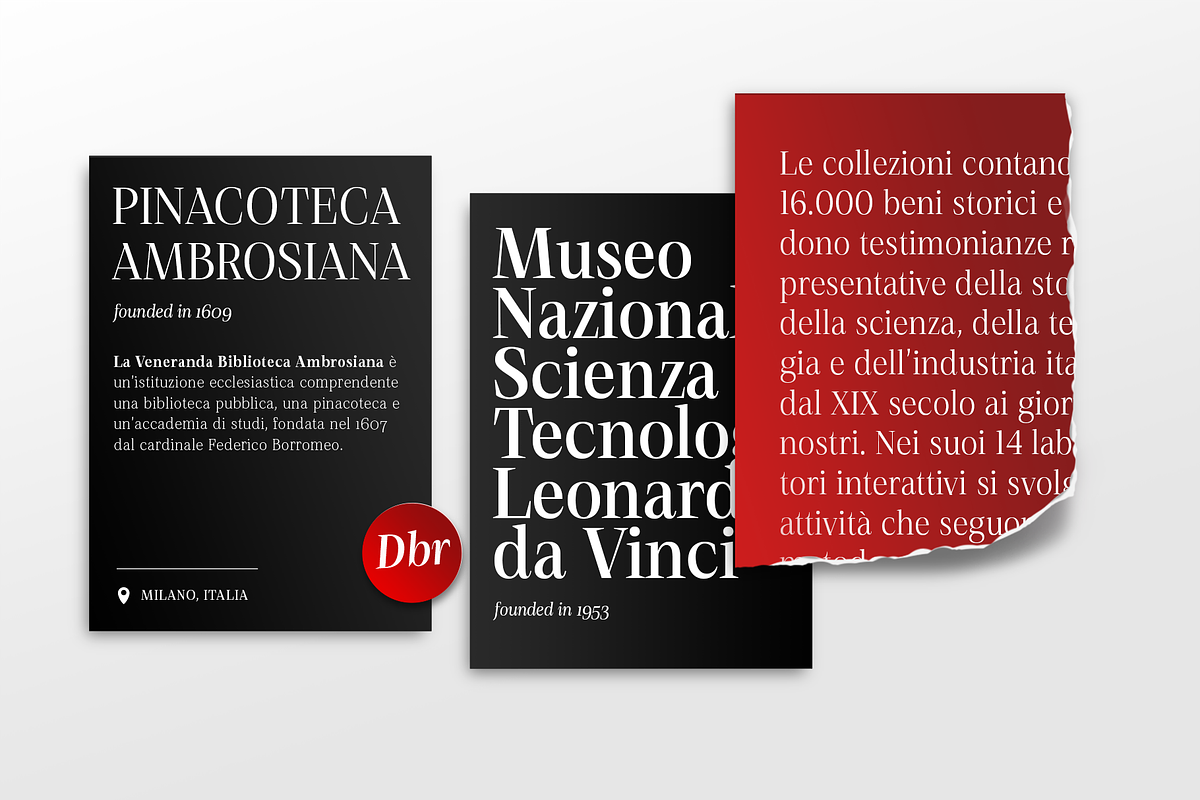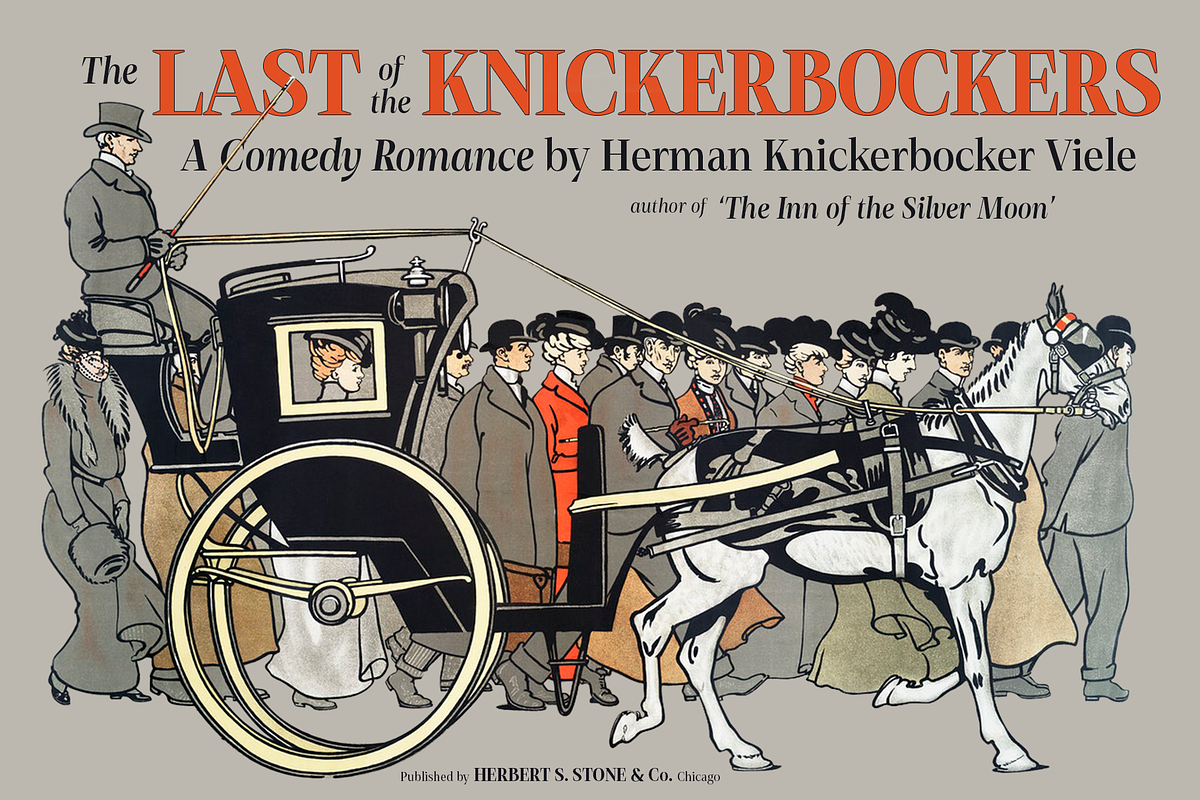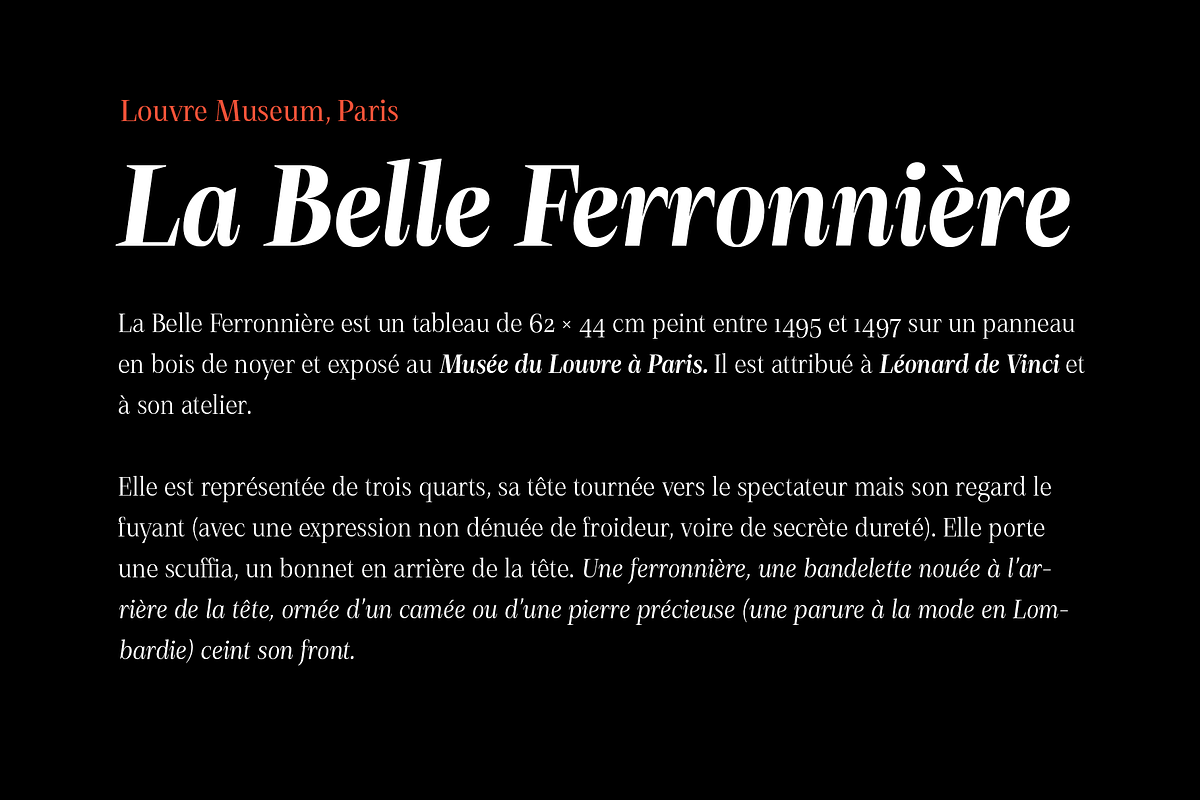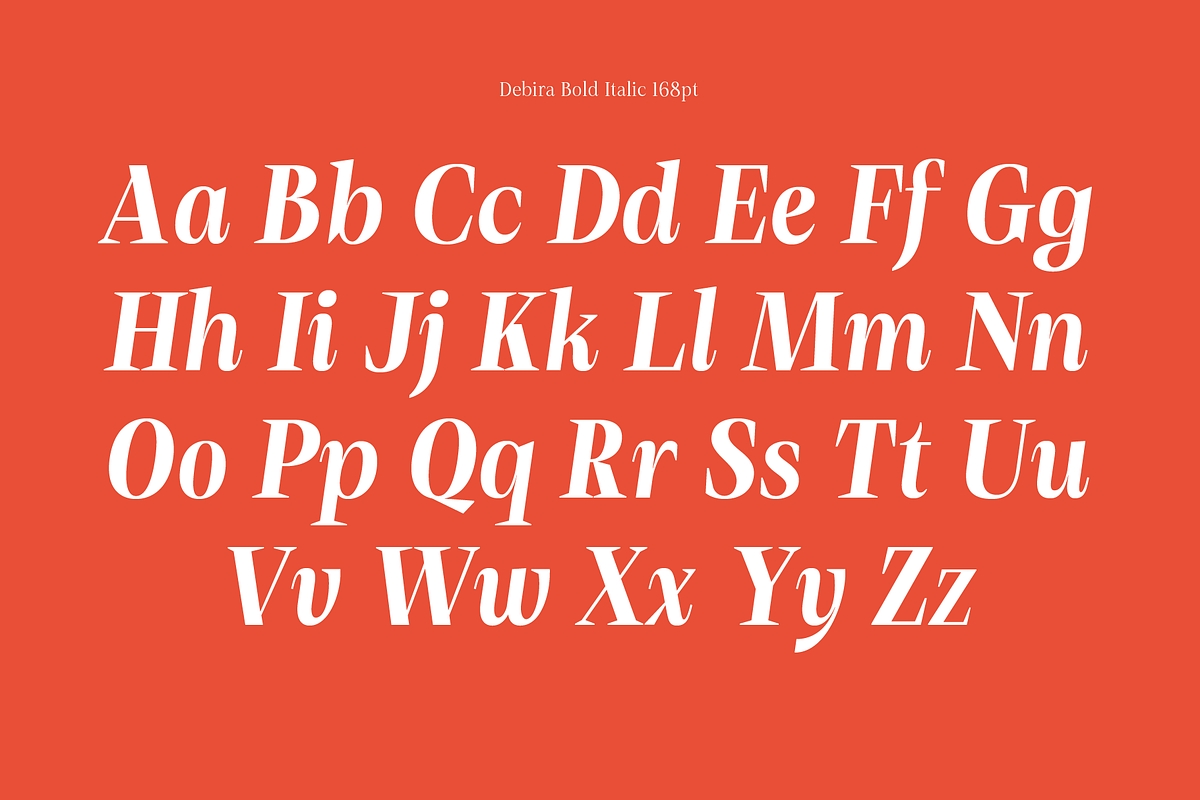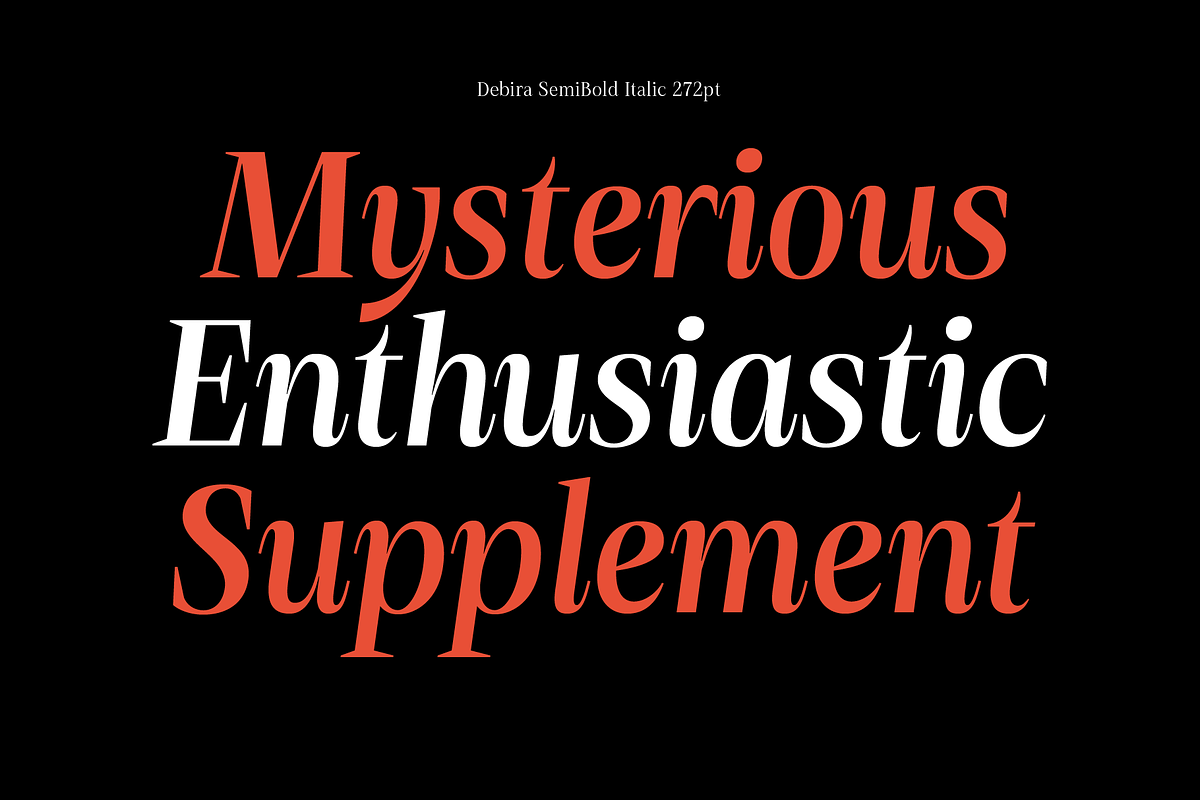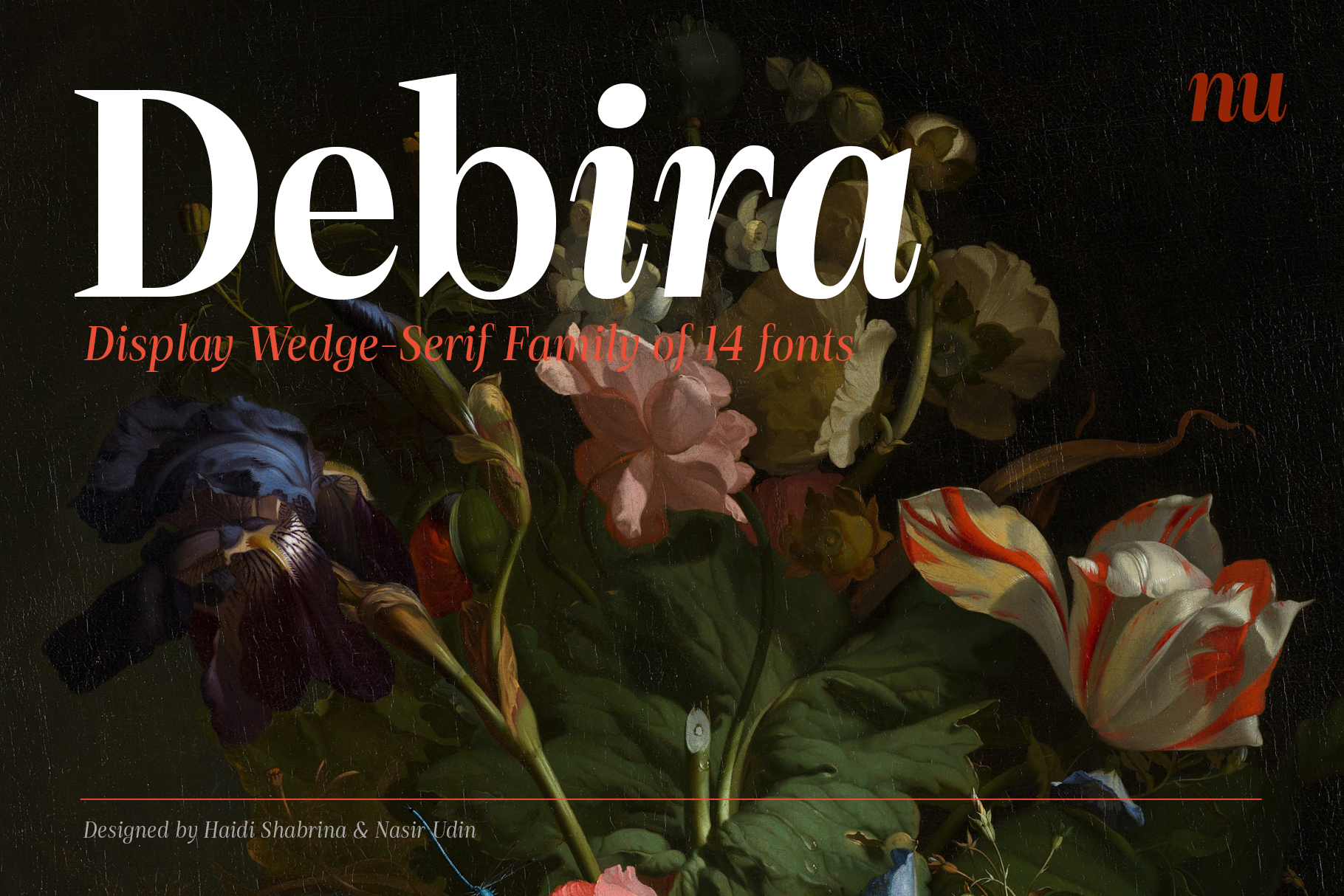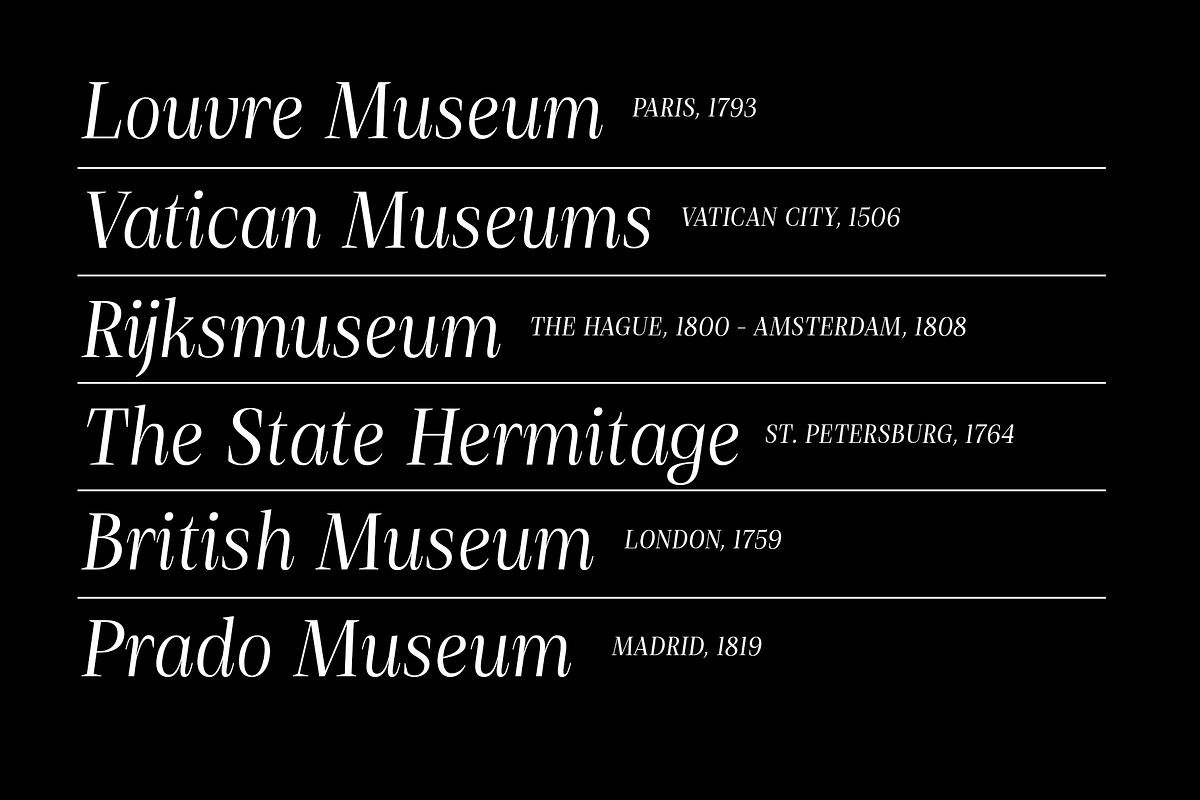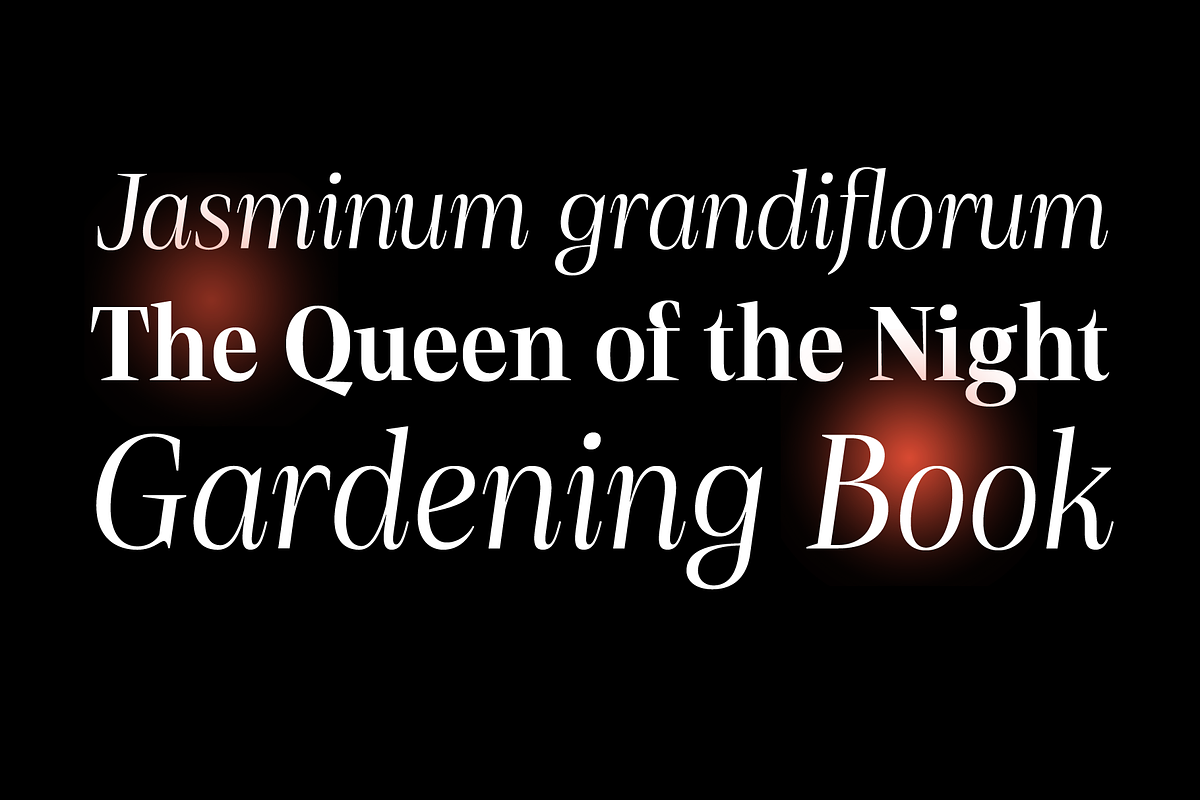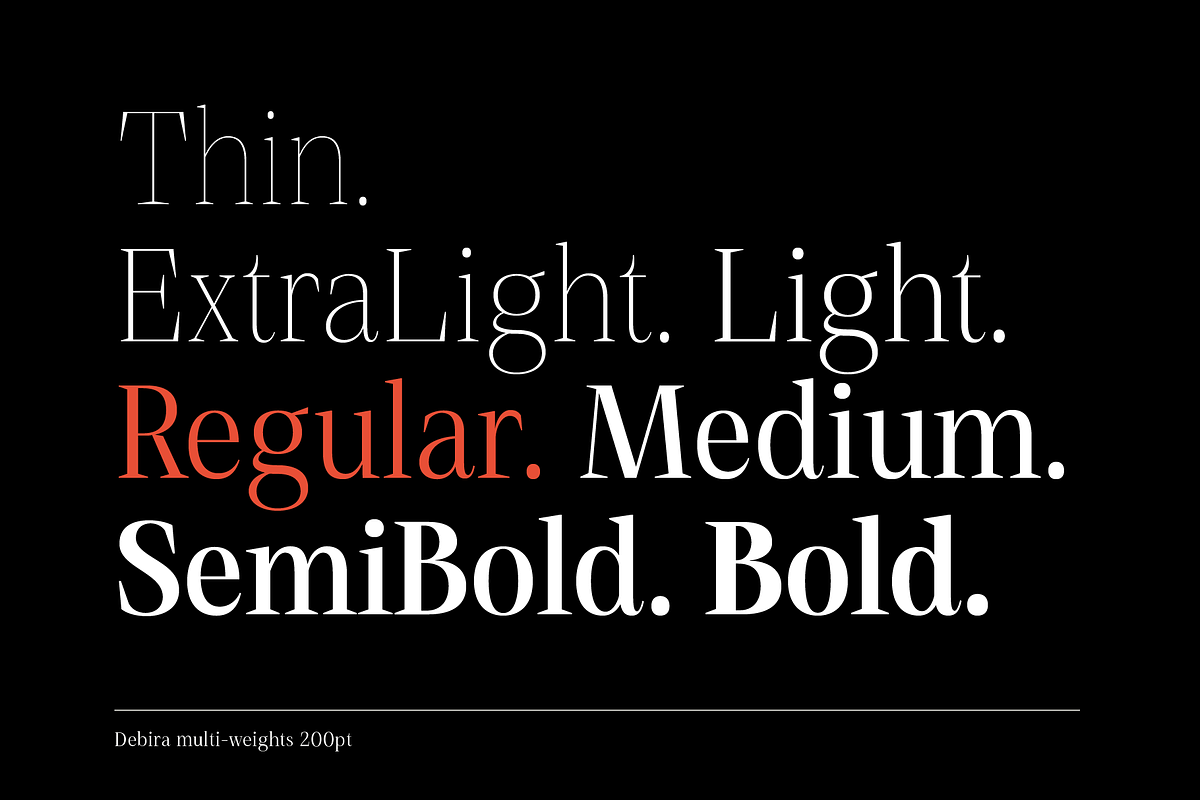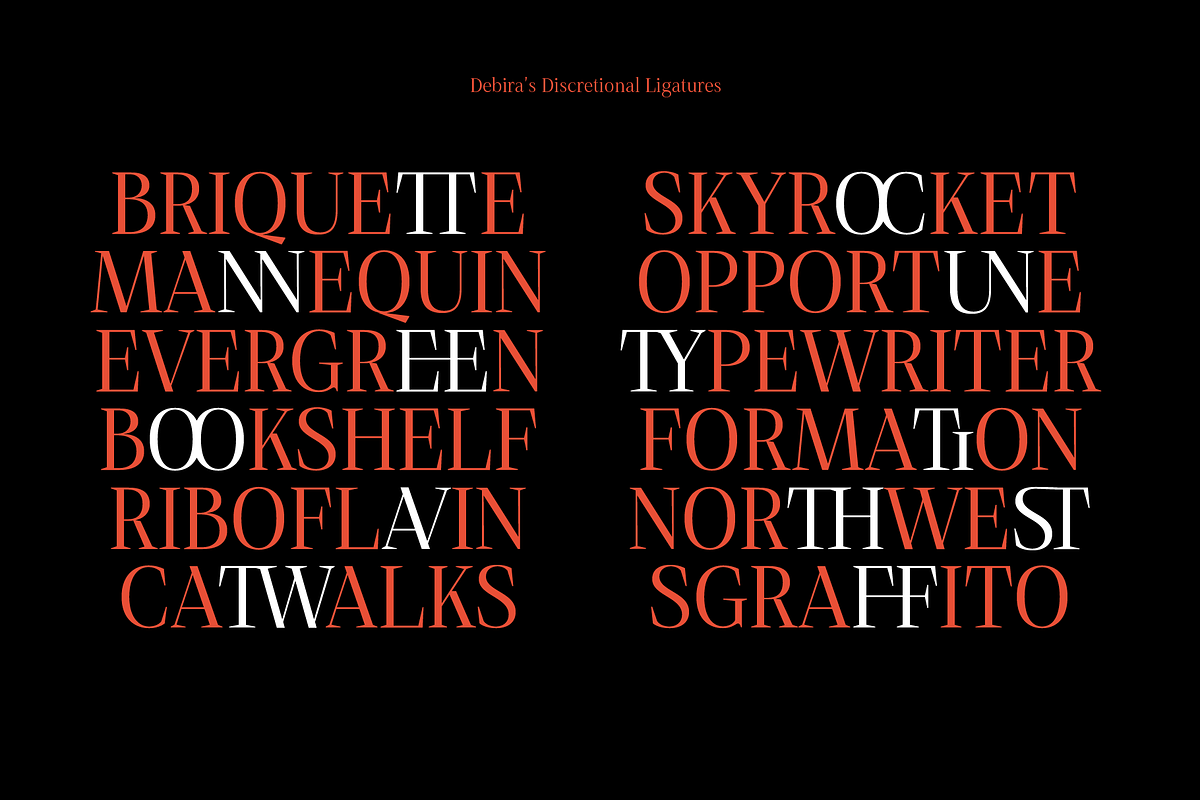
Debira — 14 Fonts
Debira is a contemporary display wedge-serif typeface. Its sharp and longer serif makes Debira a versatile type family that can be used in many different themes of design projects, from classic style to modern.
It comes in seven weights from thin to bold with matching italics. Its mixture of weights provide a wide range of styles that will help you find the best vibe for your projects, for headlines or a short paragraph. The set of special ligatures can be perfect mates for your brand. It is well suited for book covers, editorial, branding, advertising and more